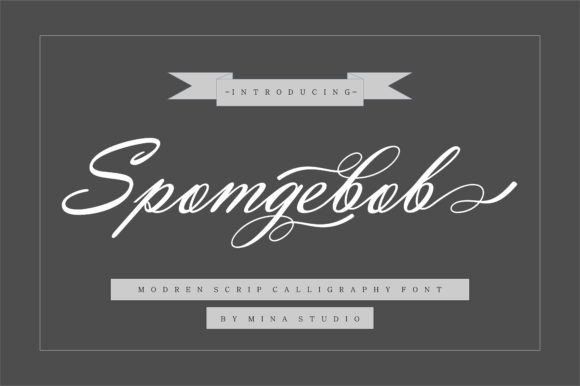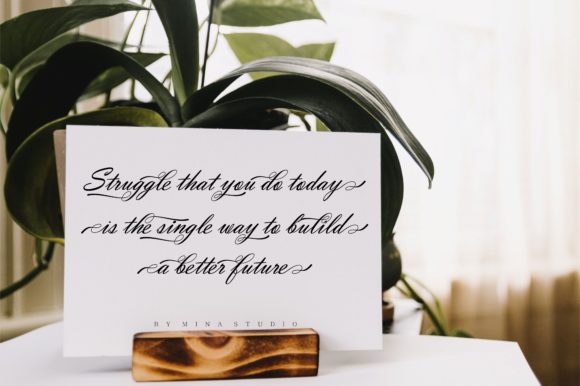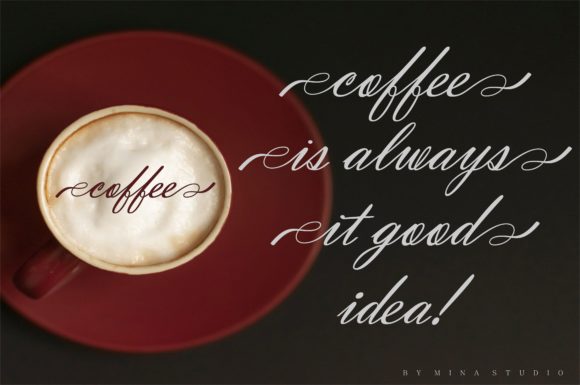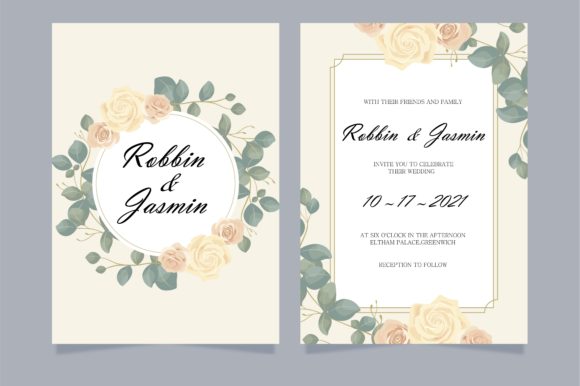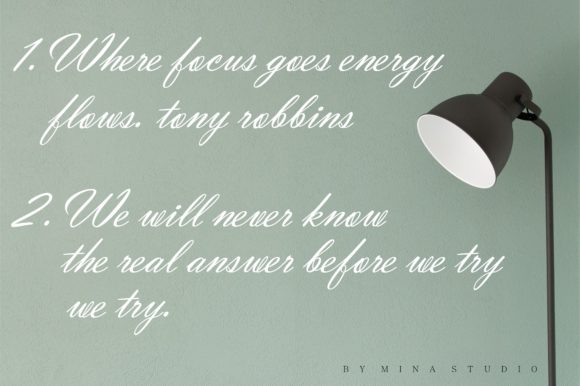
Spomgebob Font
About Spomgebob Font
Spomgebob is an elegant and flowing handwritten font. It is PUA encoded which means you can access all of the glyphs and swashes with ease! It features a varying baseline, smooth lines, gorgeous glyphs and stunning alternates. It maintains its classy calligraphic influences while feeling contemporary and fresh. Fall in love with this font and bring your projects to the highest levels!